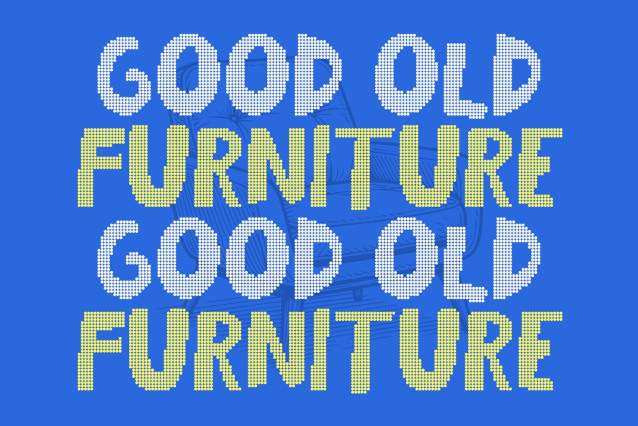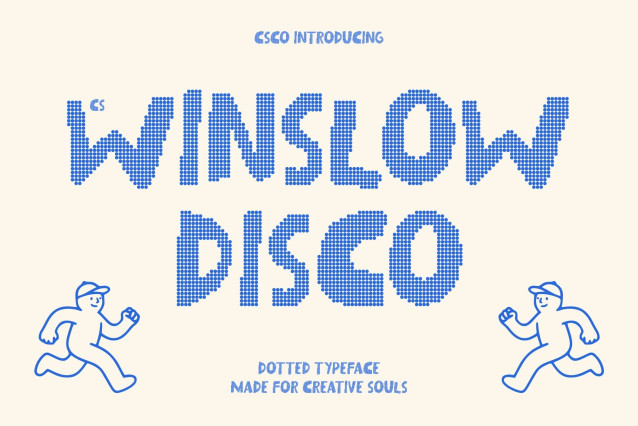
CS Winslow Disco Font
CS Winslow Disco – Playful Font with Bold, Friendly Energy
Bold, Playful Style with Disco Personality
This is a lively display font designed to spread joy and personality across your designs. Its bold strokes and rounded, friendly shapes create a cheerful presence, while the disco-inspired texture adds sparkle and visual excitement that makes every word pop.
Fun Letterforms for Youthful Creativity
With expressive proportions and smooth curves, each character carries a playful spirit and dynamic rhythm. The dotted disco effect enhances its vibrant personality, turning simple text into a joyful visual statement full of charm and energy.
Perfect for Youth Branding and Greeting Cards
This font shines in youth-oriented branding, greeting cards, playful logos, and fun packaging. Its welcoming shapes create an upbeat and memorable tone that instantly connects with audiences.
Versatile for Casual and Lighthearted Projects
From posters and social media graphics to casual editorial layouts, this font adapts effortlessly. It balances strong readability with a relaxed, happy vibe perfect for designers who want typography that feels bold, friendly, and full of life.